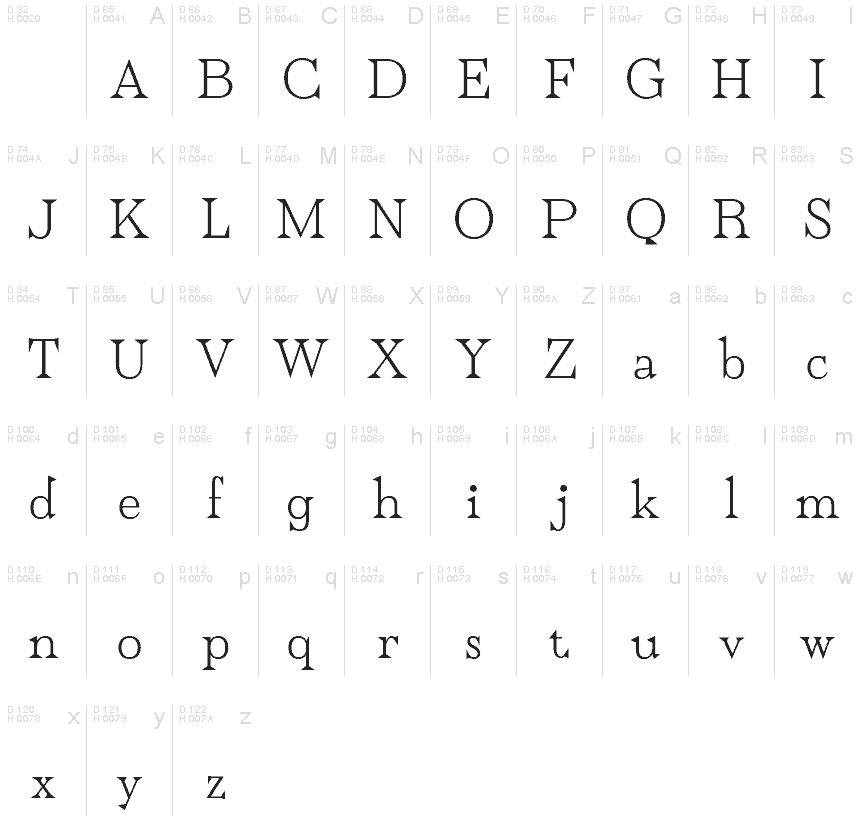
Rivania Demo Regular
Rivania font by Craft Supply Co is a free serif font inspired by the elegance and sophistication of historical typefaces. Rivania has a classic appearance with elongated verticals and precise contrasts which contribute to its graceful and stylish look. Suitable for formal applications, it combines flexibility and beauty that ensures pleasant results.